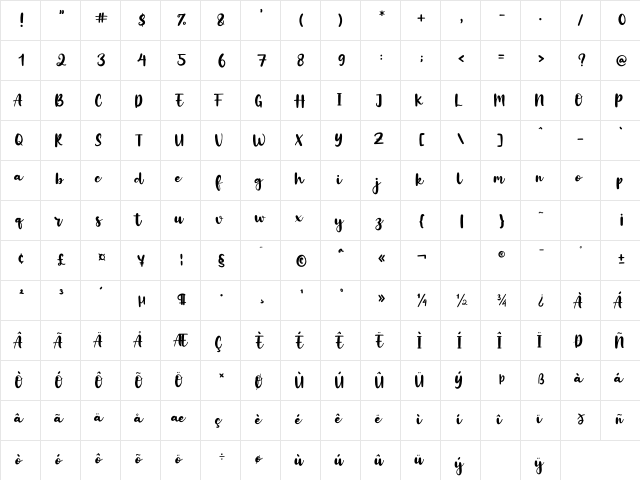
Alberteen Regular
| Foundry | KongFont |
| Designer | KongFont |
Design Context for Alberteen Typeface
Alberteen is a composed and adaptable typeface that performs quietly and consistently across a wide range of design contexts.